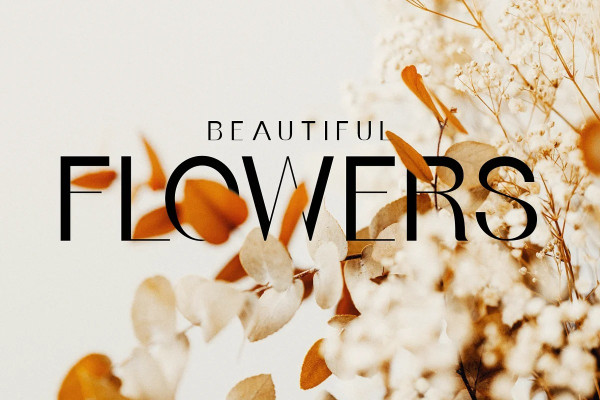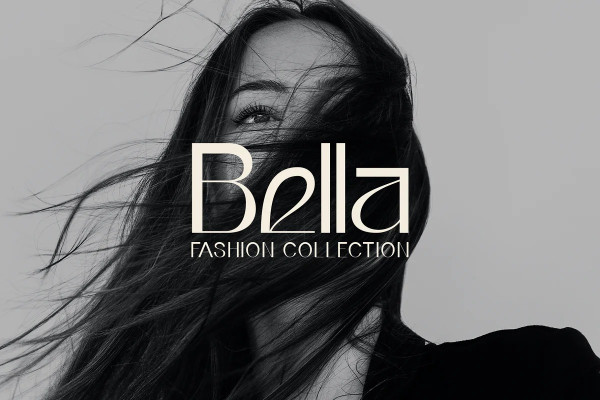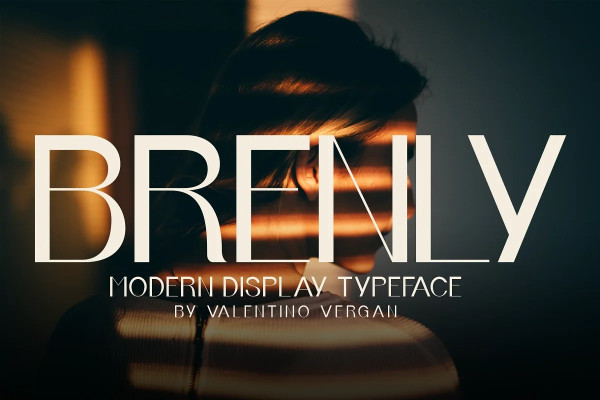
Brenly Font
Brenly Font is a modern variable sans serif font. Brenly has a unique and elegant look which makes it perfect for designing posters, brand packages & logos. Brenly also has a variable version, which makes it easy to manually adjust the slant from oblique to reversed oblique.